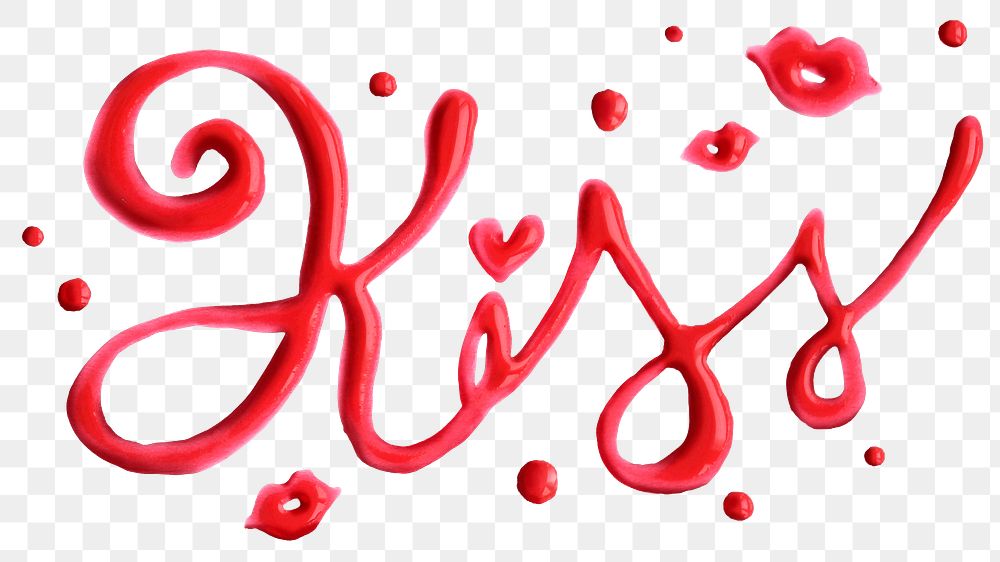
Premiumhttps://www.rawpixel.com/services/licenseshttps://www.rawpixel.com/image/2454628SaveSaveRed cursive Kiss oil paint typography design elementMorePremiumRoyalty Free Transparent PNGInfoView LicensePNGSmall PNG 1200 x 675 pxLarge PNG 2500 x 1406 pxOriginal PNG 3000 x 1687 pxCompatible with :SaveDownloadRed cursive Kiss oil paint typography design elementMore